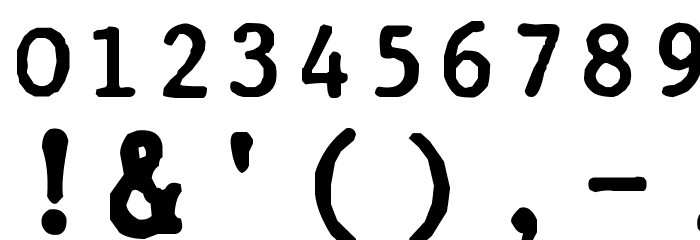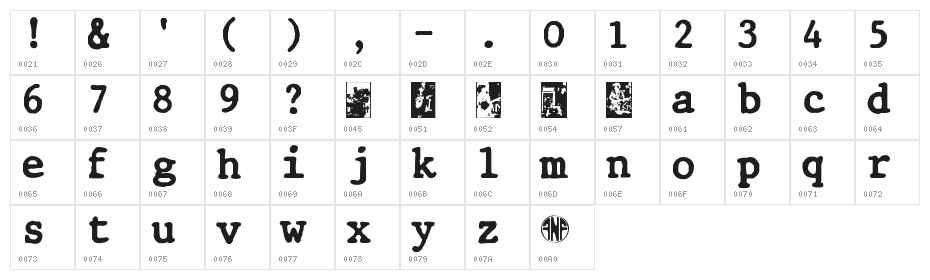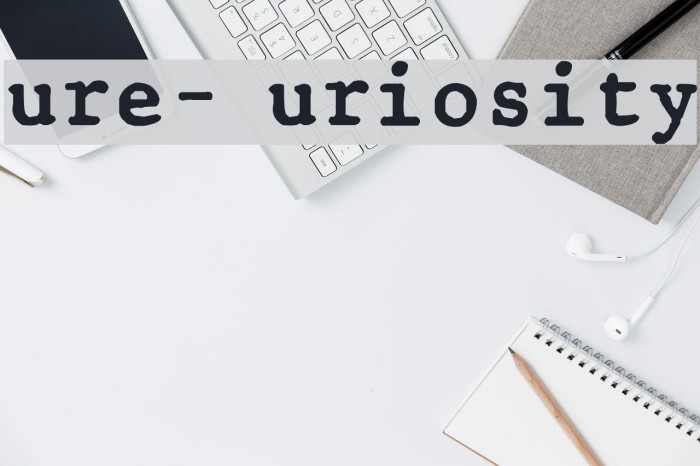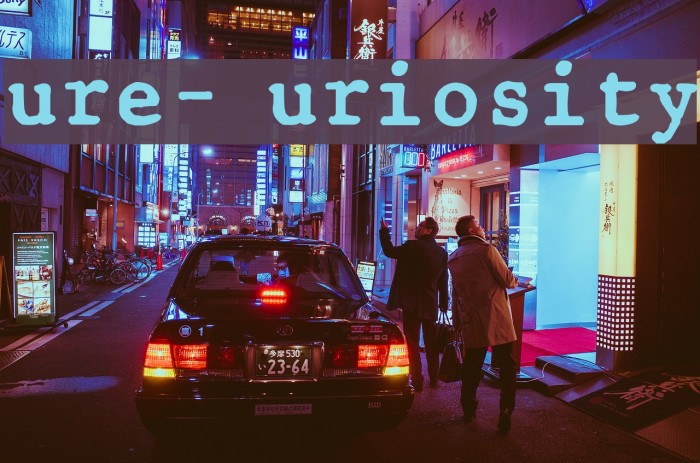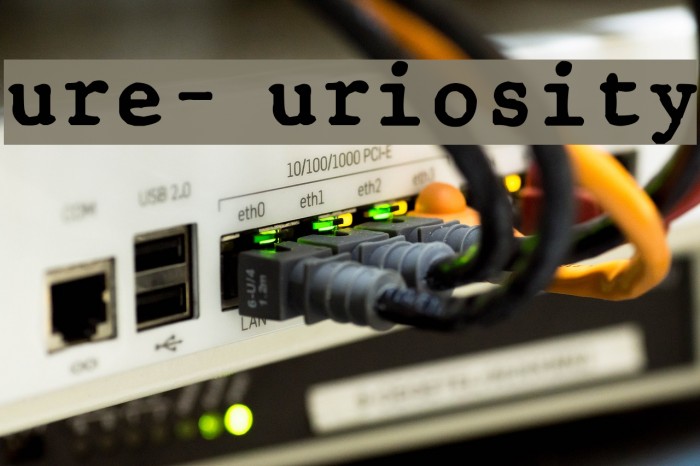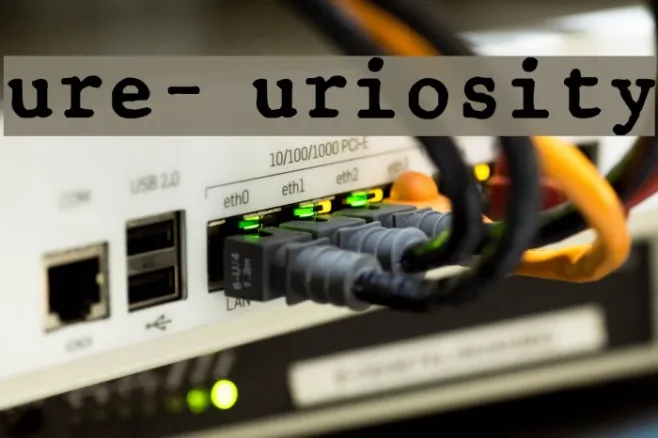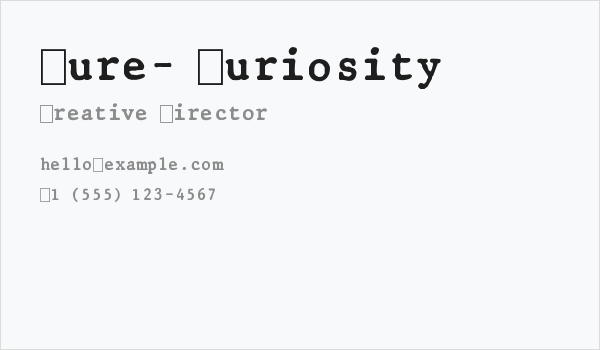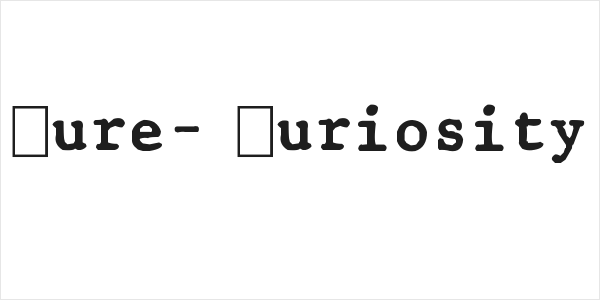
Cure- Curiosity Font
Cure- Curiosity Description
This font features a bold and slightly distressed appearance, giving it a vintage and typewriter-like feel. The characters are monospaced, with each letter and number occupying the same amount of horizontal space, which is characteristic of typewriter fonts. The edges of the characters are slightly rough, adding to the aged and mechanical aesthetic. The font includes a complete set of lowercase letters, numbers, and a selection of punctuation marks and special characters. Its unique style makes it suitable for projects that aim to evoke nostalgia or a retro vibe.
Overall StyleVintage
Proposed ProjectsIdeal for retro-themed designs, typewriter-style documents, vintage posters, and creative projects requiring a nostalgic touch.